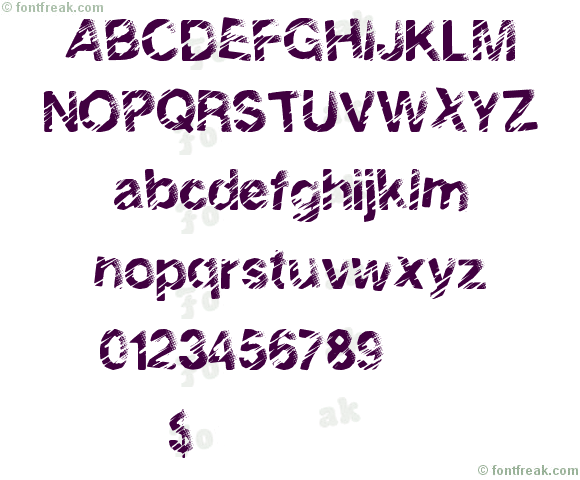
SolidEvent
SolidEvent, designed by Xerographer Fonts in 2013, is a unique display font that captivates with its playful and dynamic style. This font exhibits a distinct hand-drawn appearance, characterized by its irregular stroke weight and textured finish. The strokes vary in thickness, creating a lively contrast that adds depth and character to any text. The spacing is intentionally loose, allowing for a breathable and approachable feel, making it an excellent choice for designs that require a touch of personality.
The SolidEvent font is particularly well-suited for a variety of creative applications. It shines in contexts such as wedding invitations, where its whimsical flair can evoke joy and romance. Similarly, it can be effectively used in movie posters, infusing a sense of excitement and intrigue. For restaurant menus, the font adds a casual and inviting atmosphere, making it perfect for trendy eateries and cafes. Additionally, small businesses can leverage the SolidEvent font in branding materials, ensuring their visual identity stands out in a crowded marketplace.
Targeted towards graphic designers, small business owners, and content creators, this font provides a versatile tool for anyone looking to infuse their projects with a distinctive style. The unique visual characteristics of SolidEvent not only enhance the aesthetic appeal but also convey a sense of creativity and innovation.